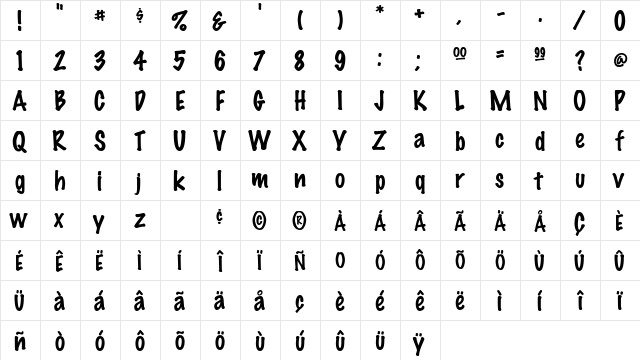
MarkerBoardSSK Regular
Design Context for MarkerBoardSSK Typeface
MarkerBoardSSK is a composed and adaptable typeface that performs quietly and consistently across a wide range of design contexts.